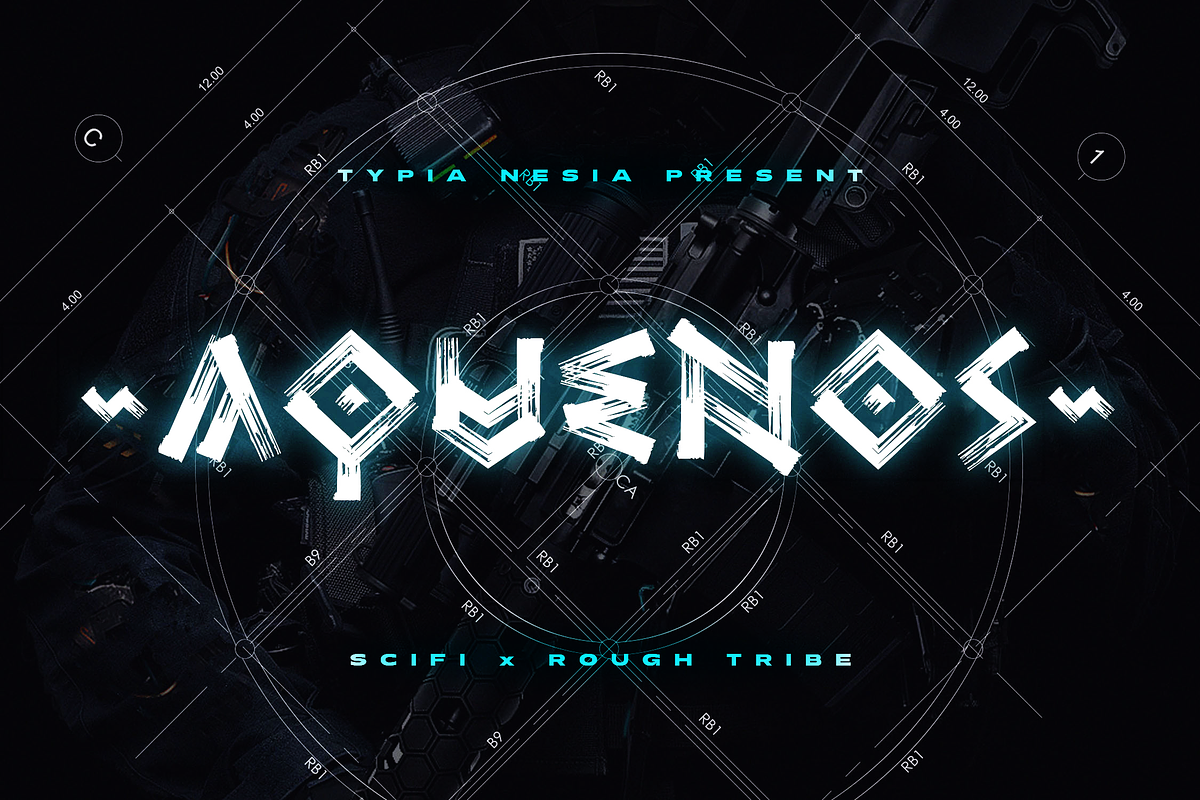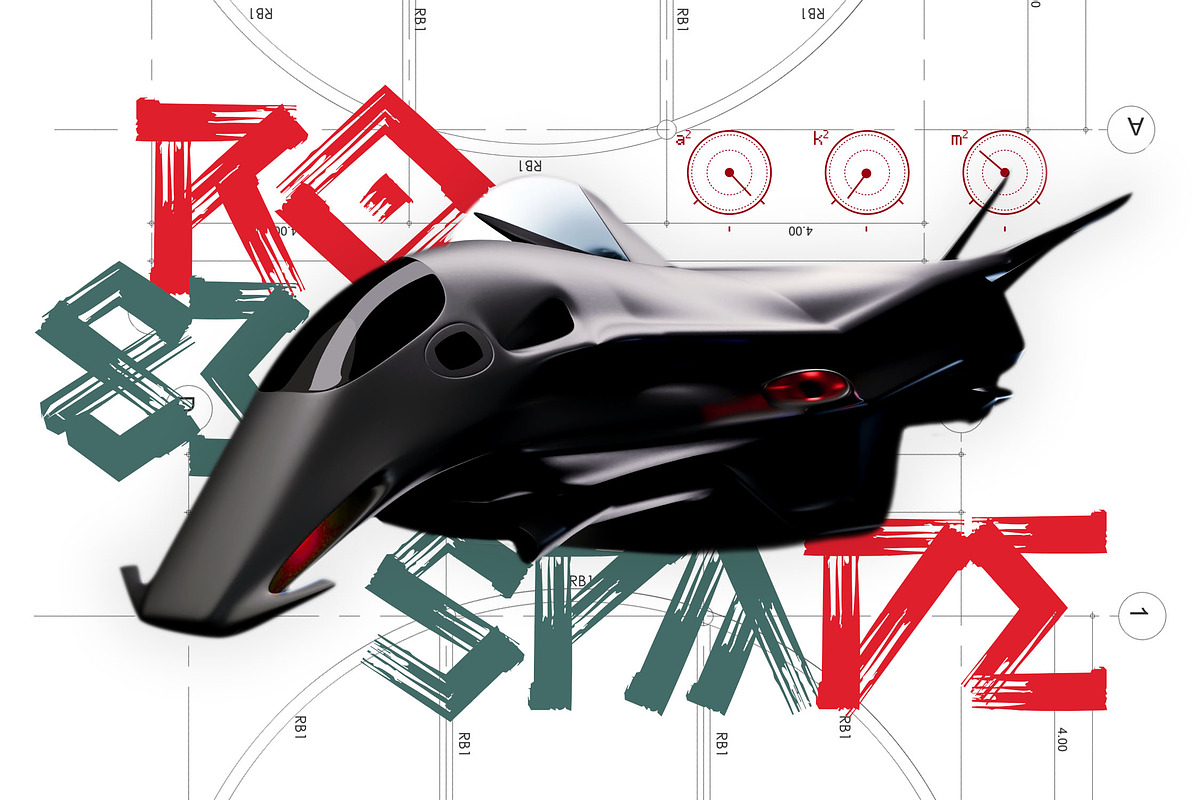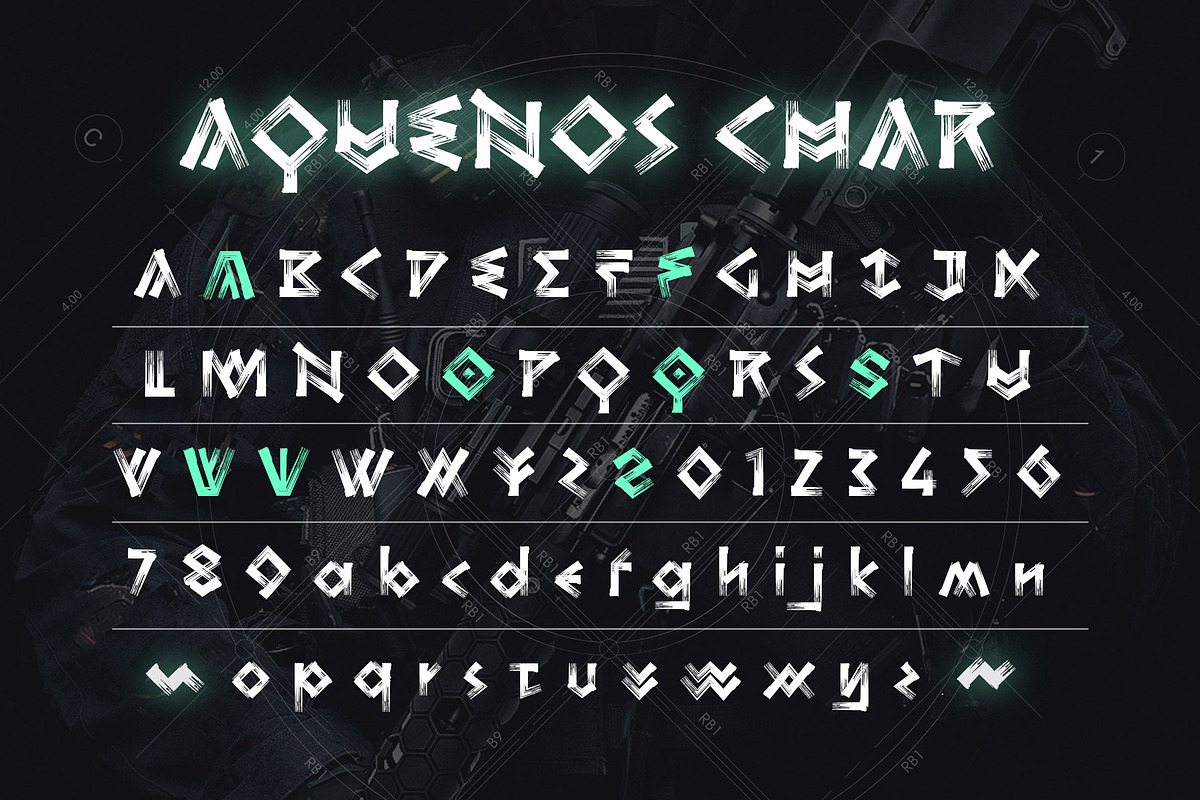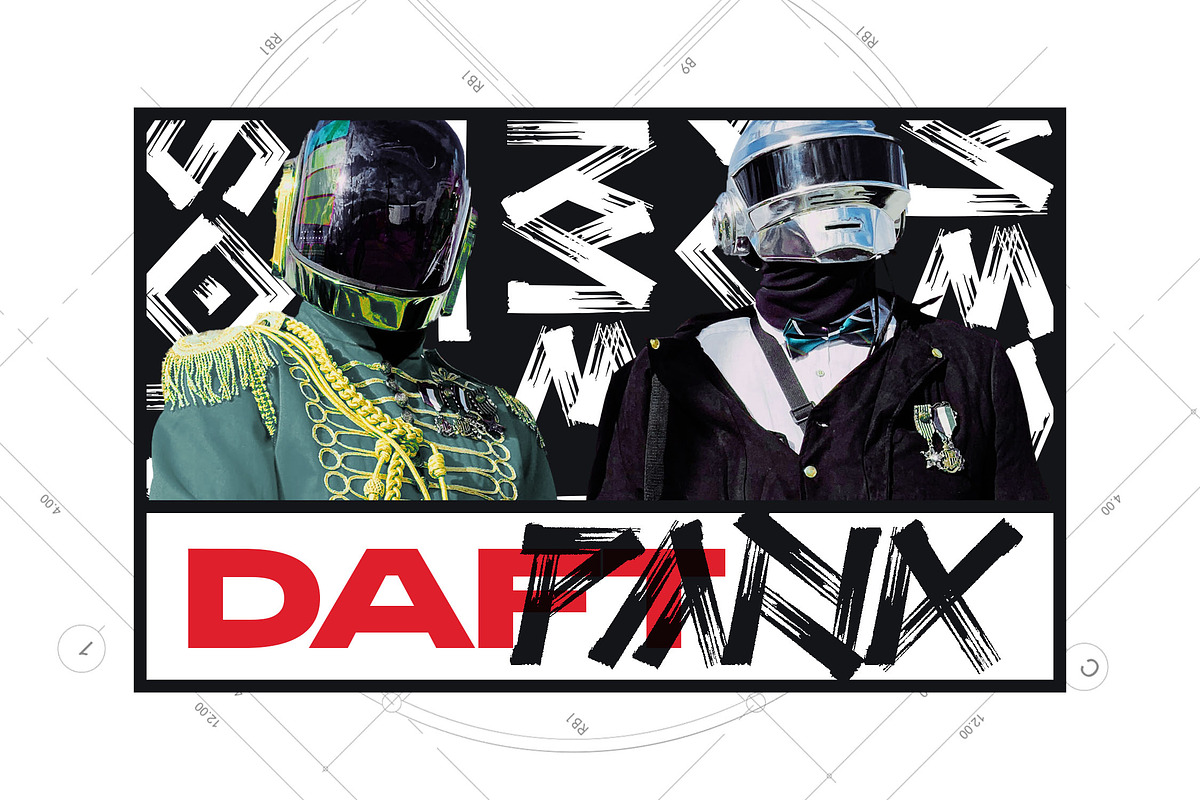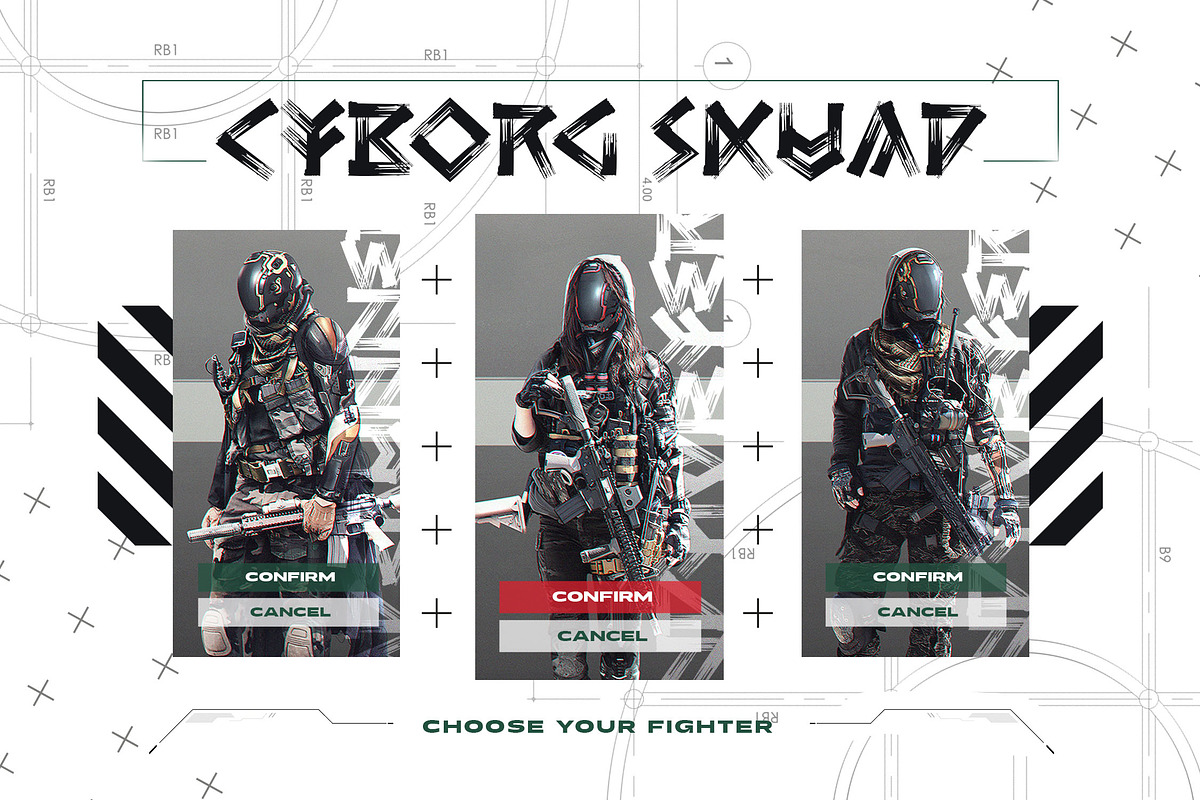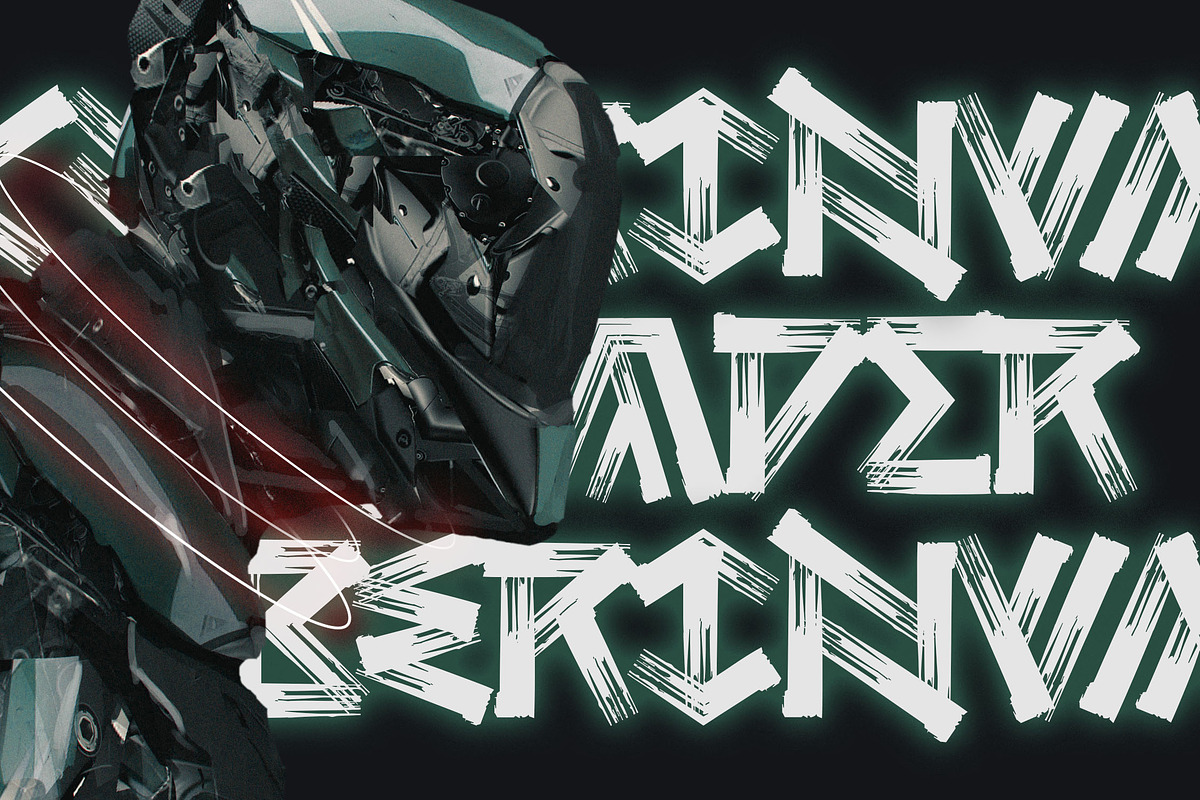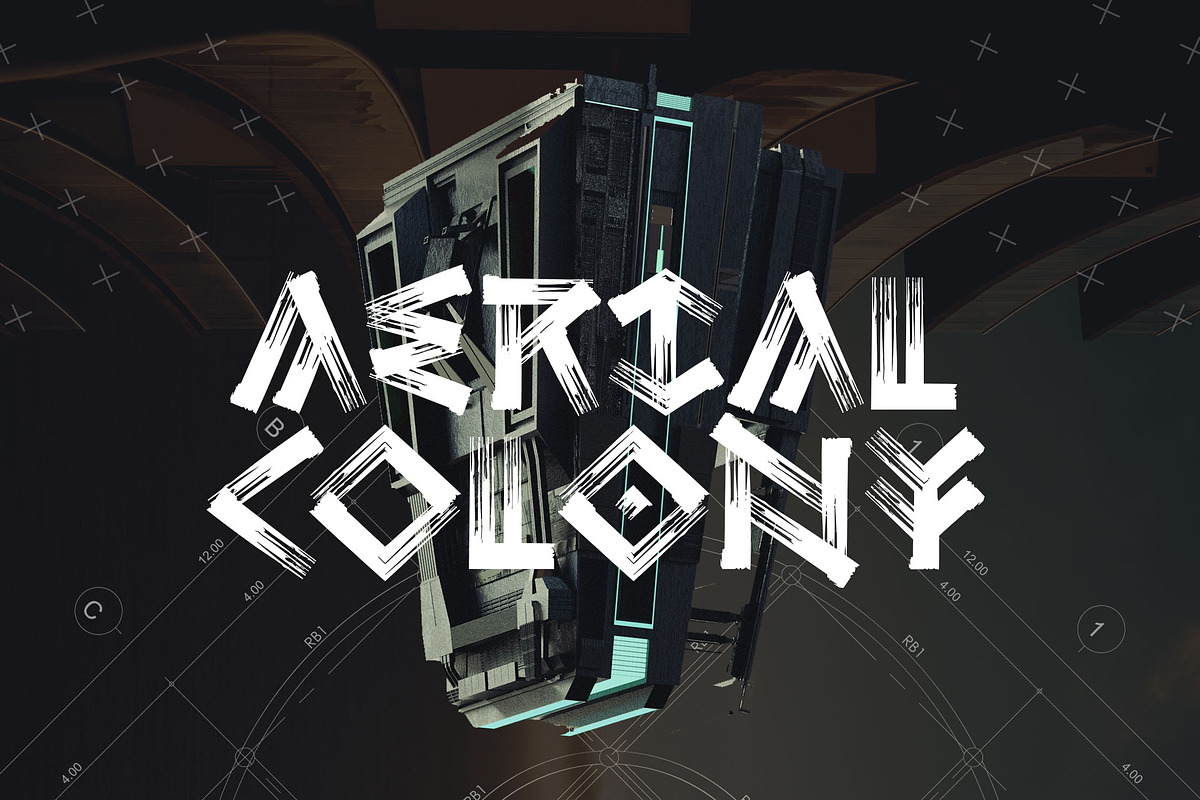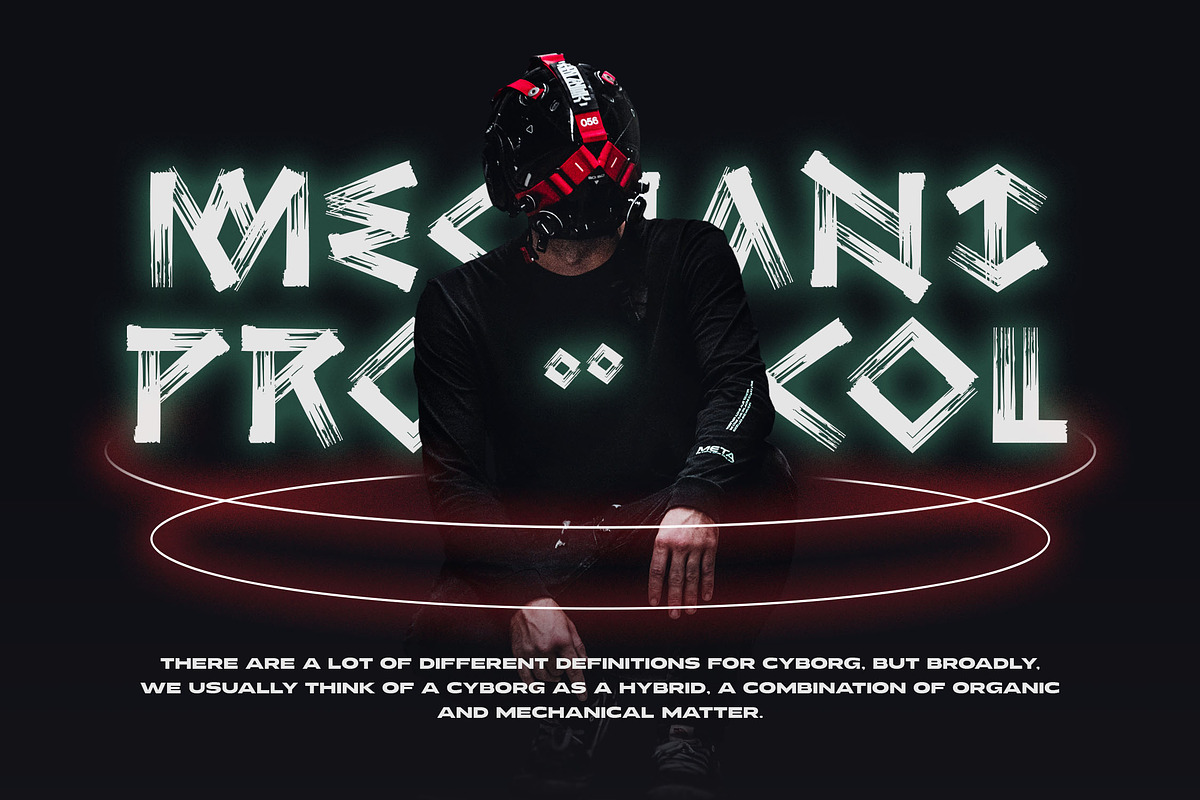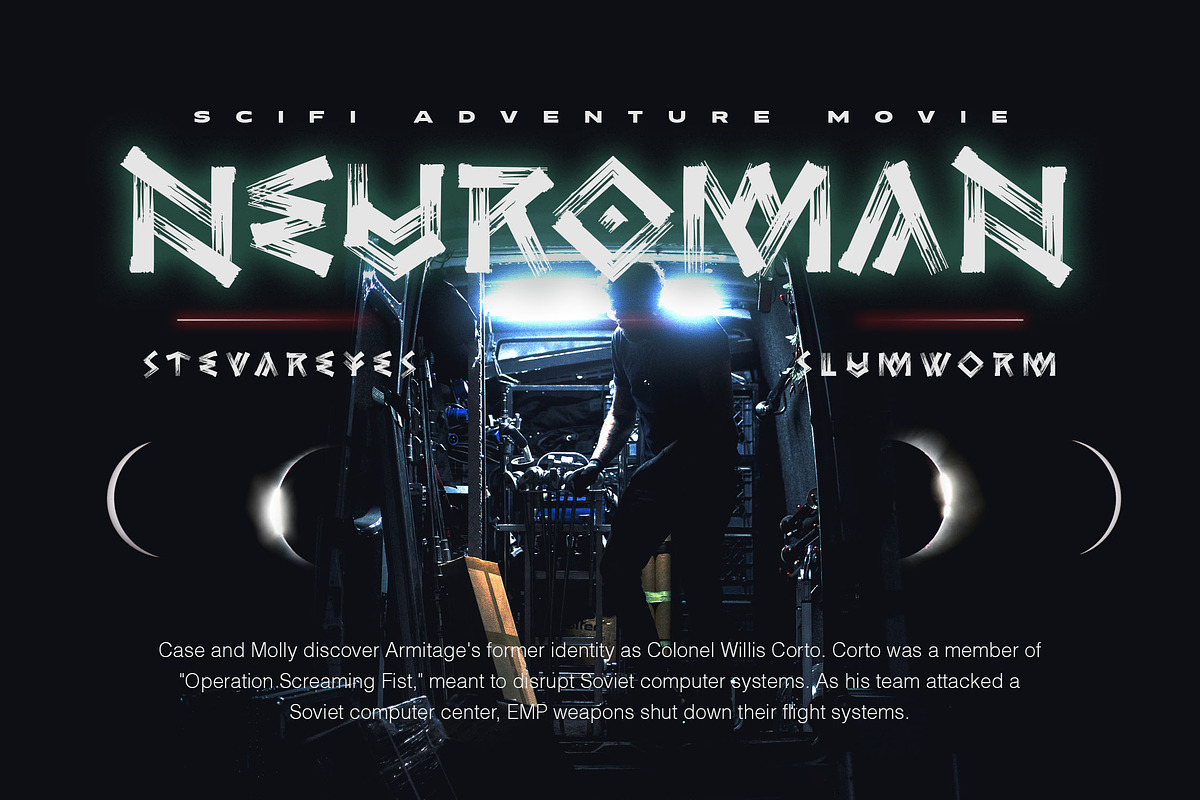
Aquenos - Brush Tribe Font
Aquenos - Rough Brush Tribe x Sci-Fi Game Display Font - Techno Futuristic Sans
Aquenos Game Sans Serif Display Font is perfect for your up coming projects. Such as logo branding, editorial design, esport design, 80s retro design, game / gaming industry, sport racing, super car brand, esport branding, music poster, website design, modern advertising design, poster quote, book/cover title, special events and any more.